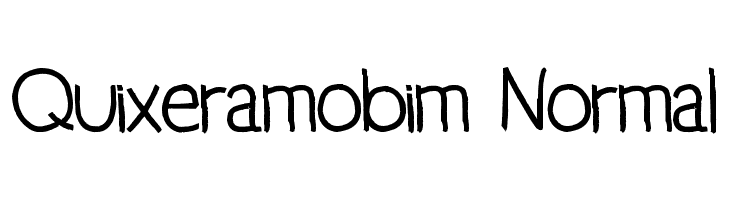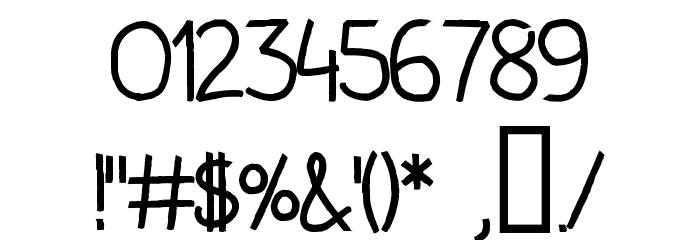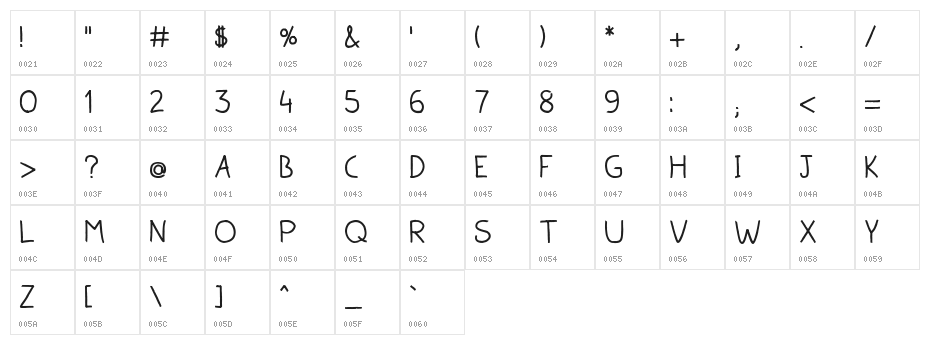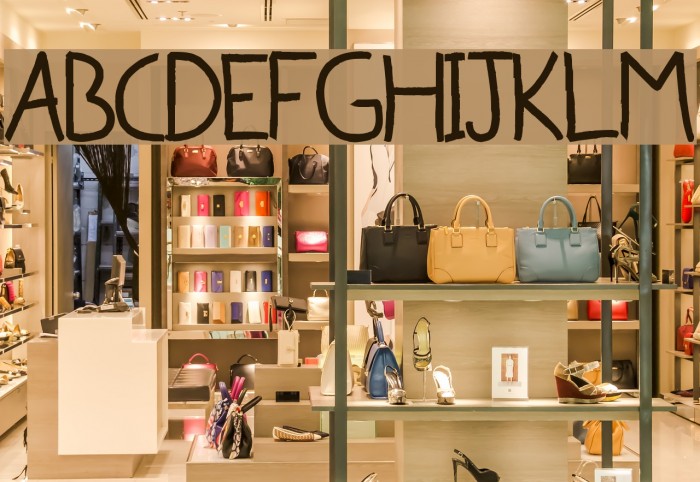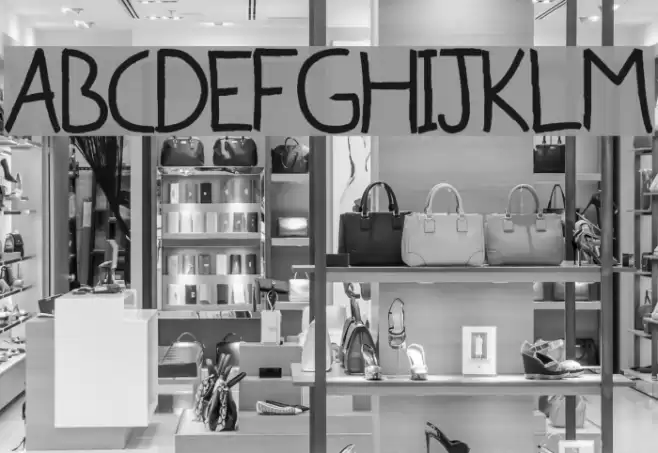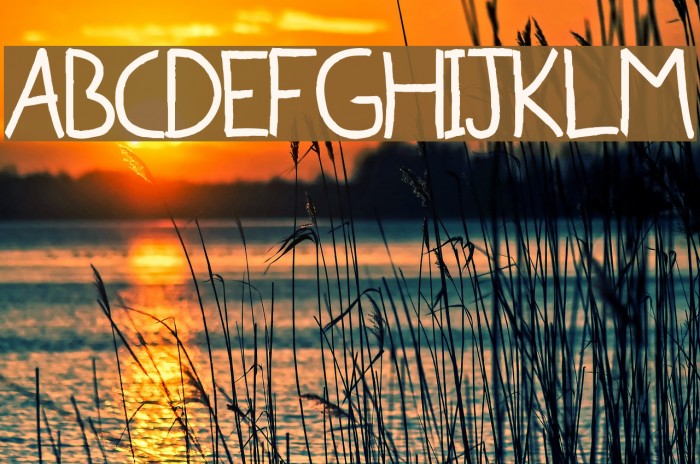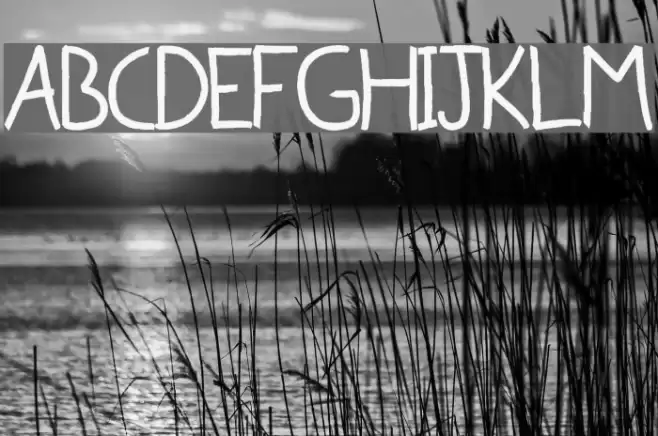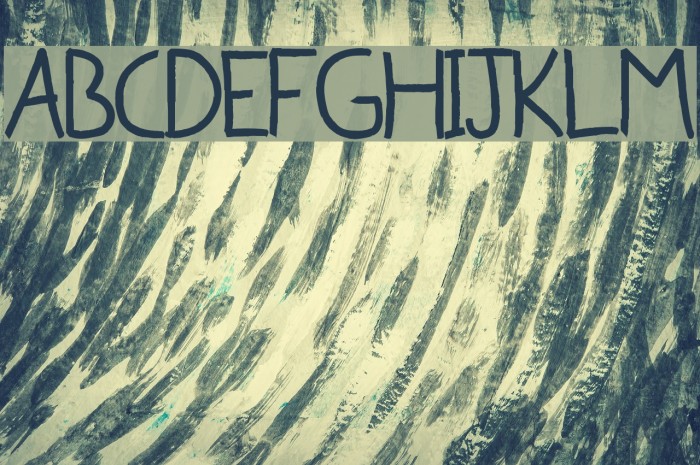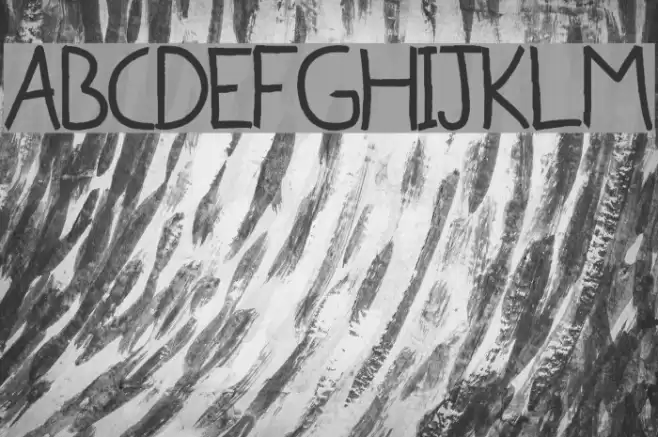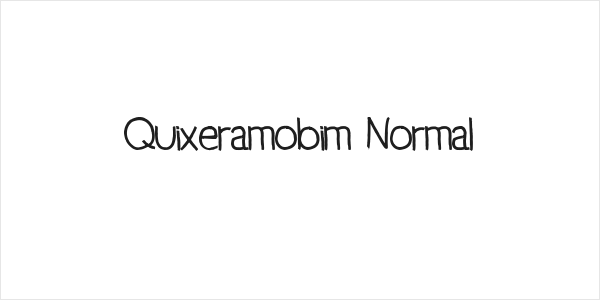
Quixeramobim Normal Font
Quixeramobim Normal Description
This font features a playful and informal style with a hand-drawn appearance. The characters are slightly irregular, adding a whimsical and casual feel. The uppercase letters are bold and distinct, while the lowercase letters maintain a consistent flow. The numerals are clear and easy to read, matching the overall quirky aesthetic. Special characters are creatively designed, enhancing the font's unique personality. This font is perfect for projects that require a touch of fun and creativity, such as children's books, posters, and casual branding.
| Proposed Projects | Ideal for children's books, playful posters, casual branding, and creative invitations. |